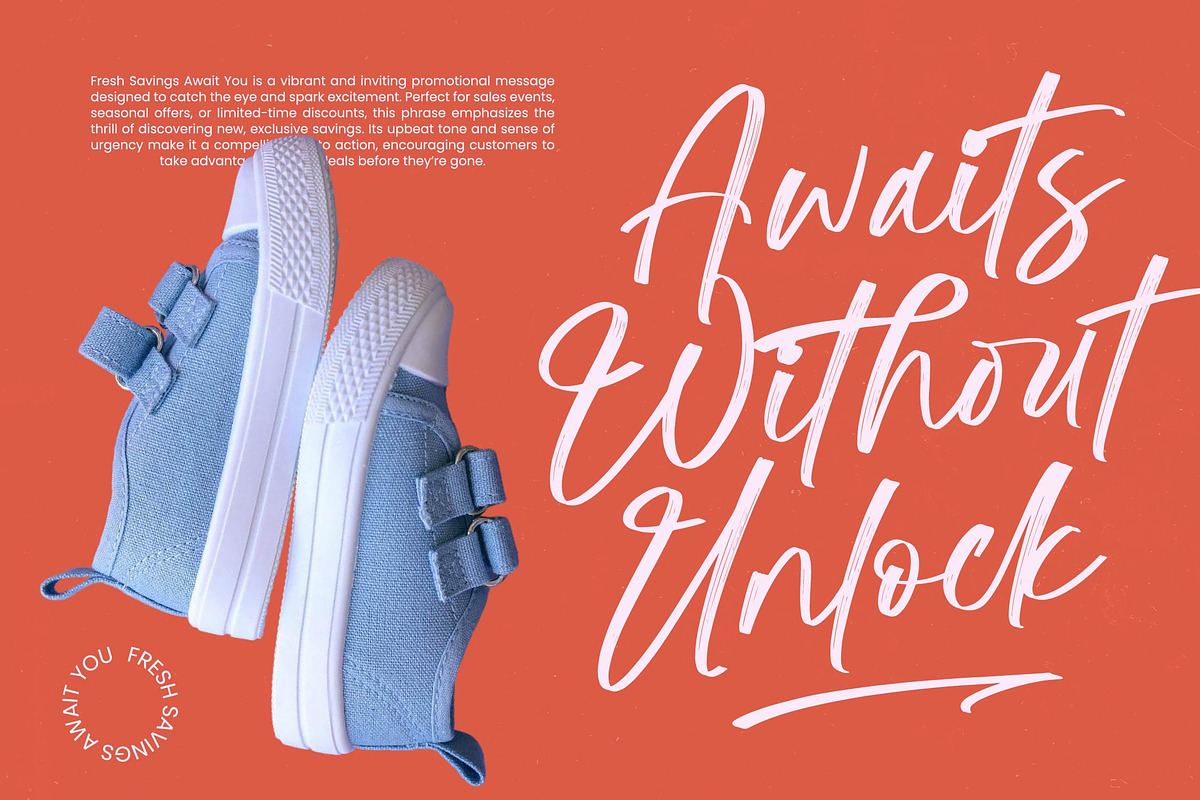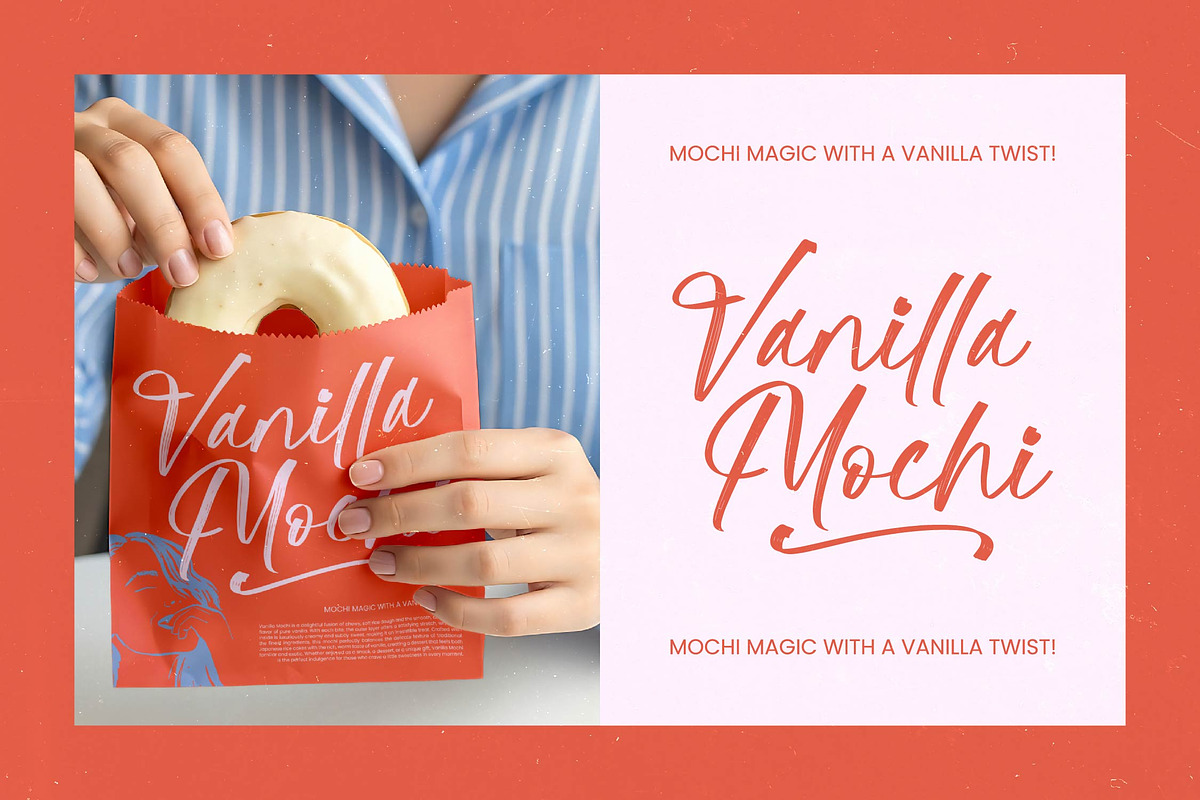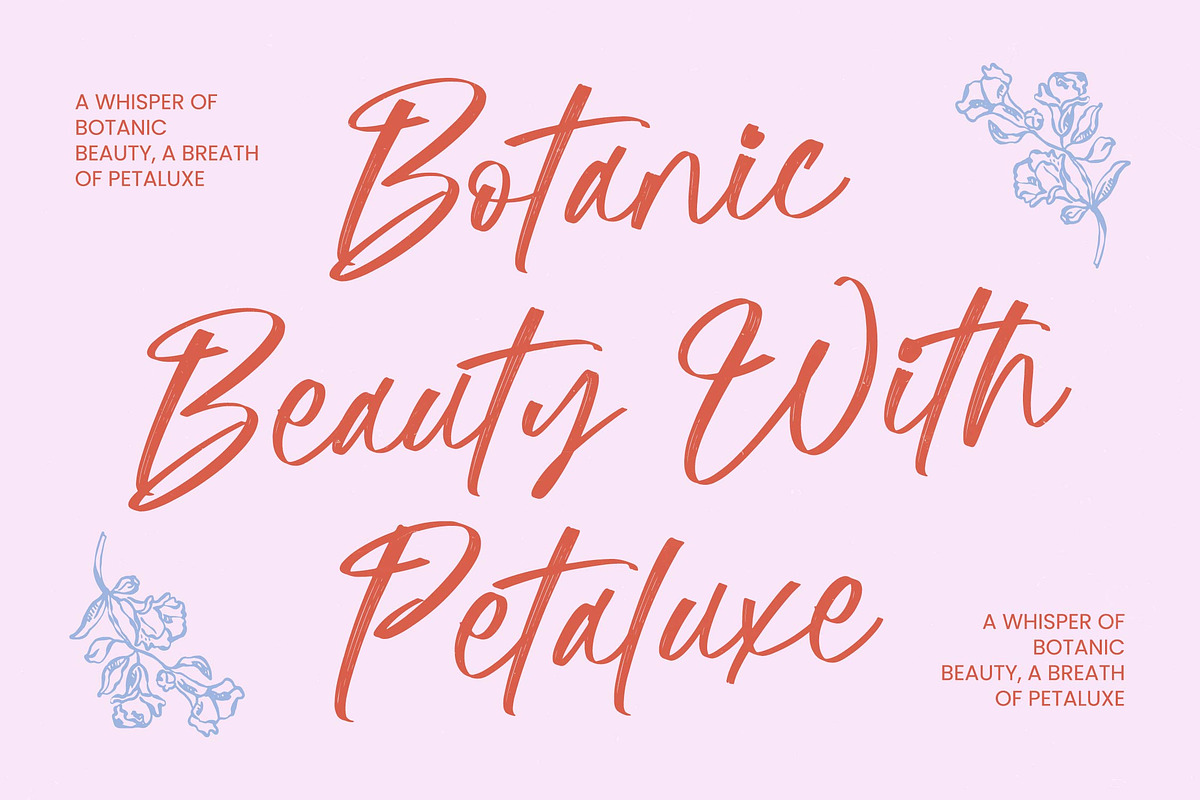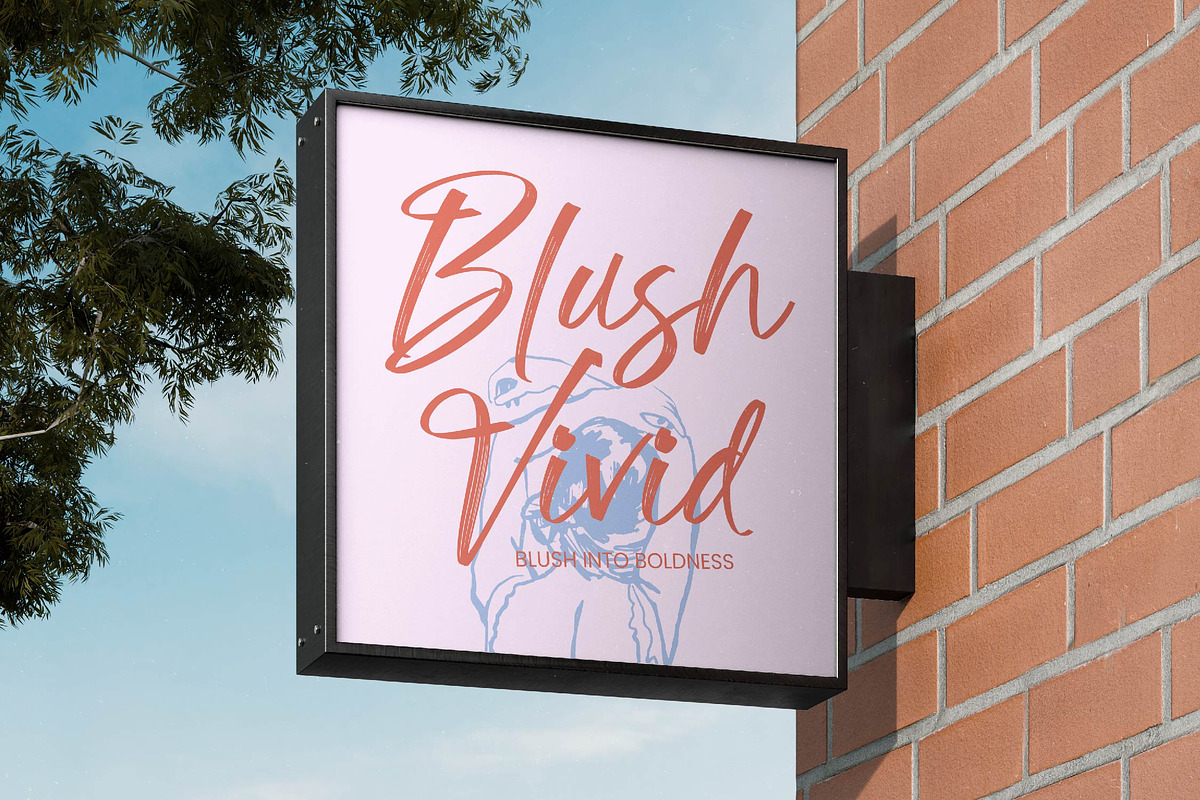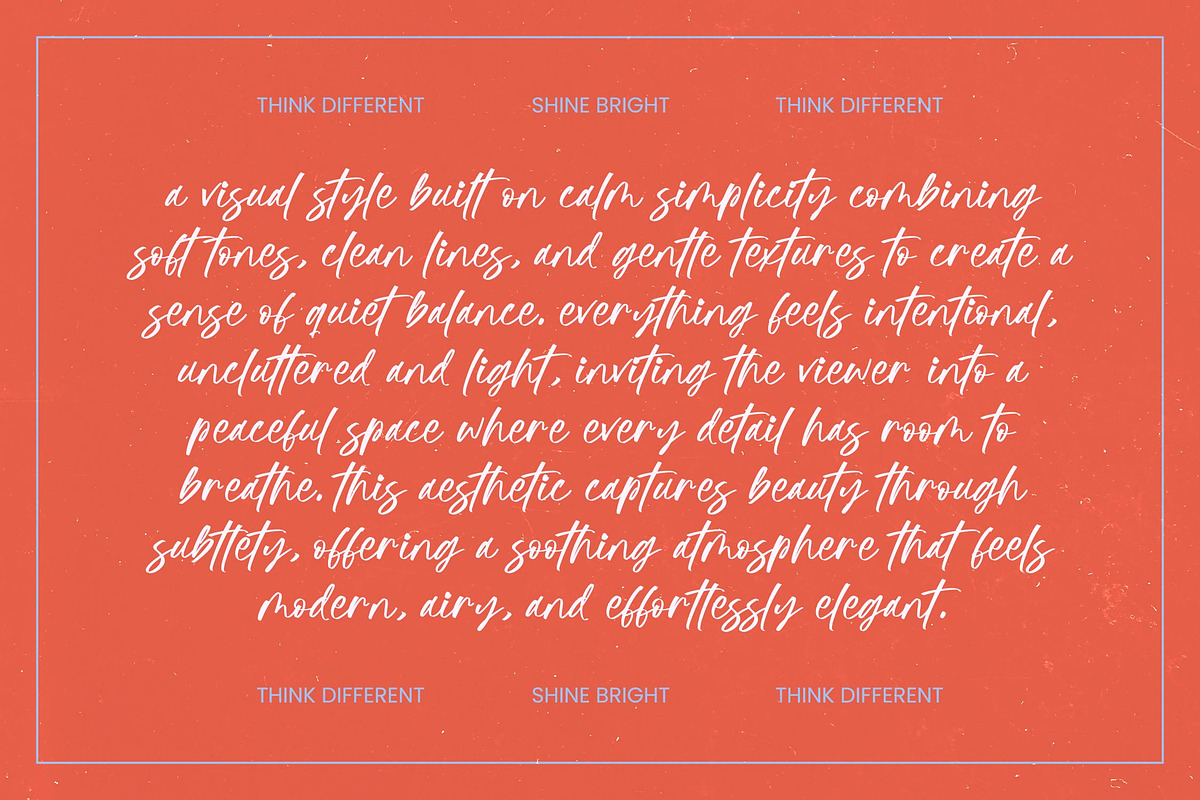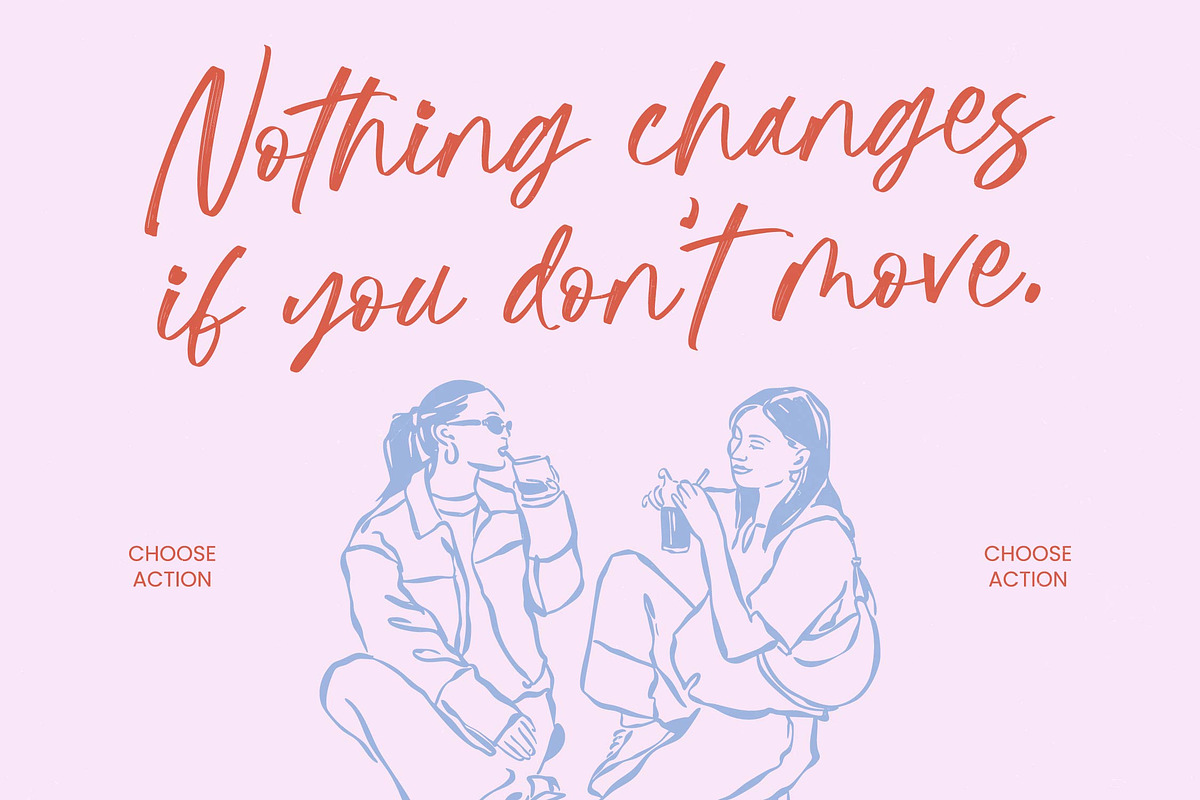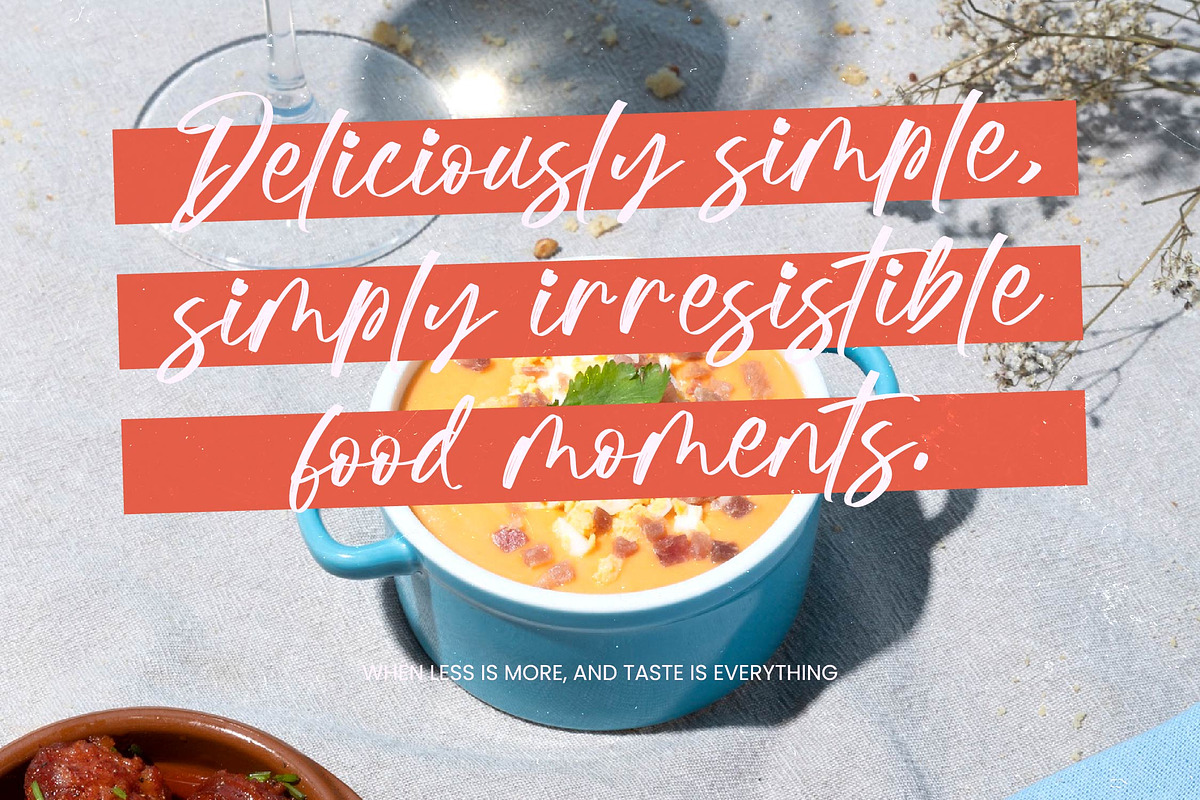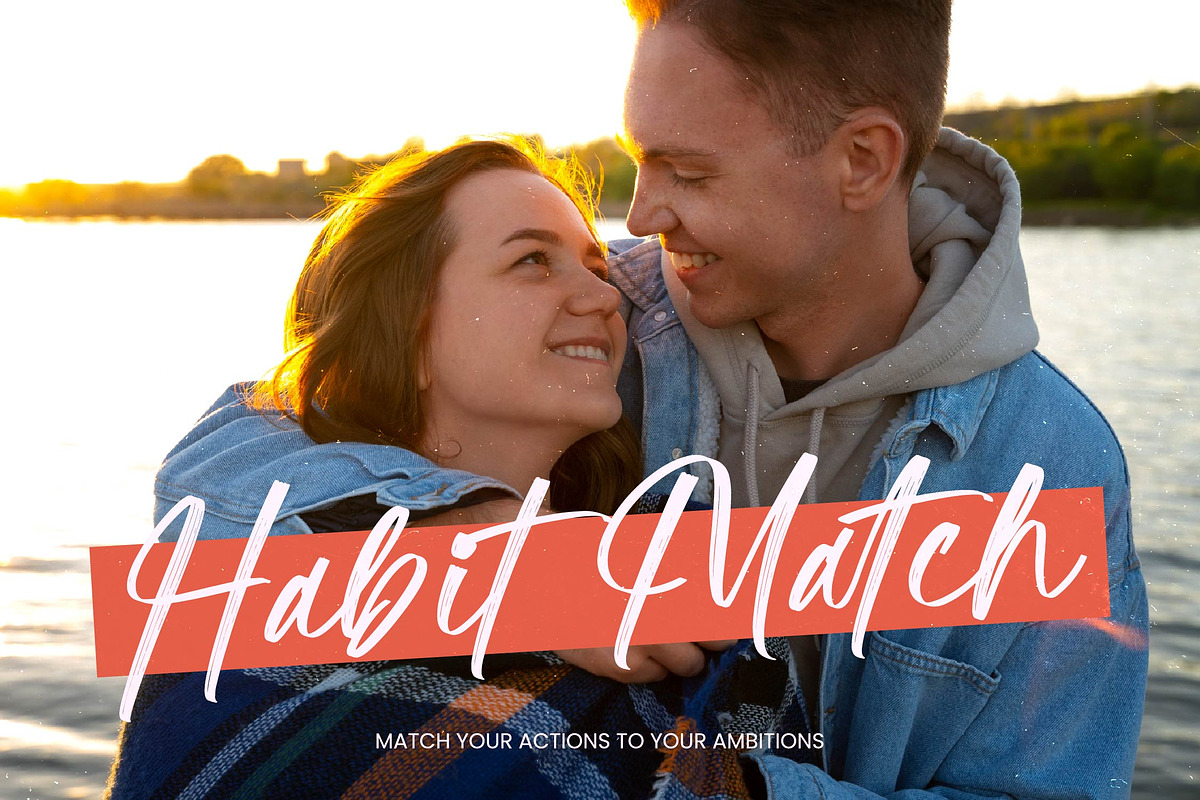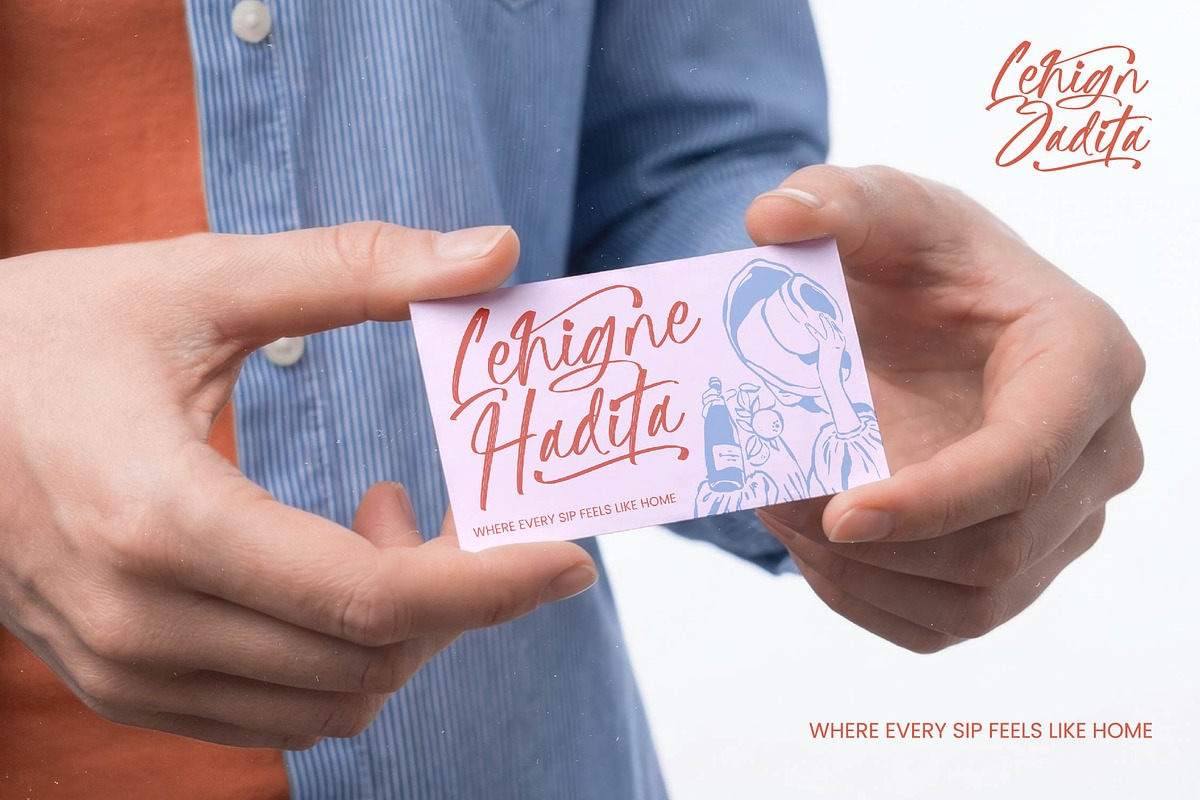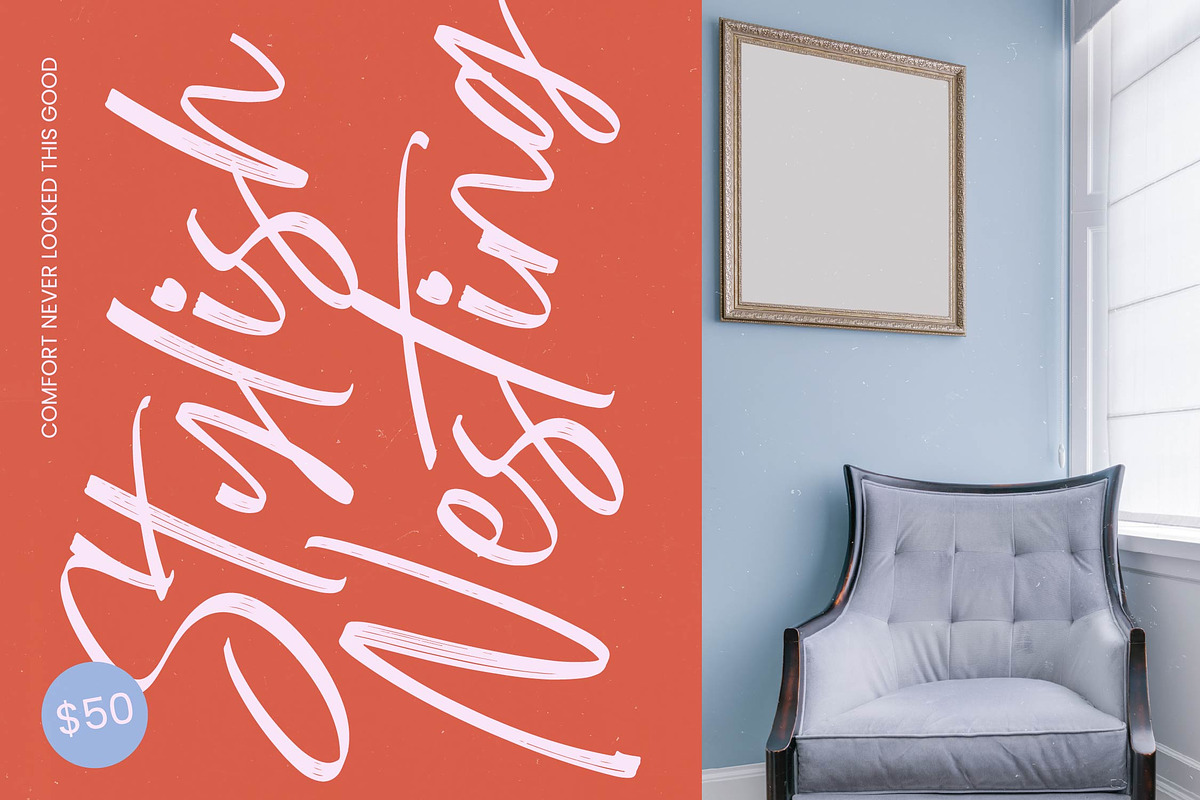
Suthel Matik - Bold Brush Font
Suthel Matik - Bold Brush Font , Suthel Matik is a bold brush display font crafted for designs that need personality, movement, and a confidently modern handwritten feel. Its expressive strokes, natural texture, and stylish handcrafted curves make it perfect for branding, packaging, social media posts, invitations, logo signatures, and editorial layouts that demand a strong visual voice.
With 98 ligatures, 14 alternates, and 17 swashes, Suthel Matik gives you full creative flexibility to build dynamic, custom lettering compositions effortlessly. A perfect choice for creators who want boldness with elegance in one stroke.